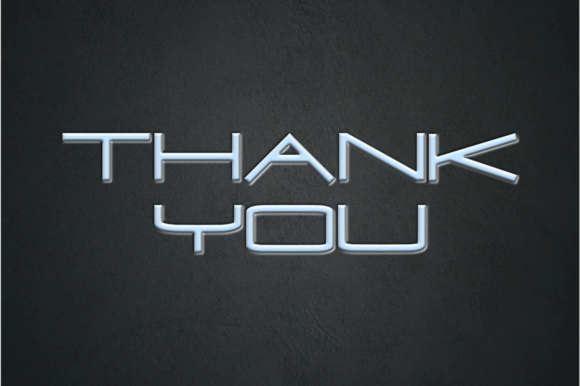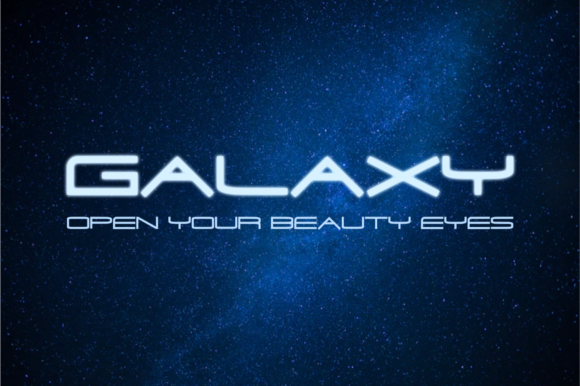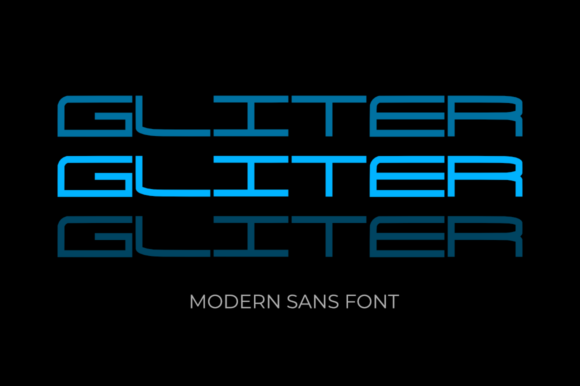
Introducing Gliter Font: Elevate Your Designs with a Modern and Clean Display Font
In the world of design, typography plays a crucial role in conveying messages, expressing creativity, and establishing brand identities. For designers and crafters seeking a font that embodies modernity, minimalism, and a touch of techno style, Gliter Font is an excellent choice. This clean and modern display font is designed to add a smart and cool touch to various design projects, including web designs, logos, and more.
What is Gliter Font?
Gliter Font is a carefully crafted display font that boasts a clean and modern aesthetic. Its minimalist design ensures that it can be used in a wide range of applications, from digital platforms to print materials. The font’s techno style gives it a fresh and cutting-edge look, making it perfect for designers who want to add a contemporary twist to their work.
Key Features of Gliter Font
- Clean and Modern Design: Gliter Font features a clean and modern design that ensures your designs look sleek and sophisticated.
- Minimalist Style: The font’s minimalist style makes it versatile and easy to pair with other fonts, ensuring that your designs remain clutter-free and focused.
- Techno Style: The techno style of Gliter Font gives it a unique edge, making it perfect for designs that require a modern and innovative look.
- High Versatility: Gliter Font can be used in a variety of design projects, including web designs, logos, posters, and more.
Benefits of Using Gliter Font
Using Gliter Font in your design projects comes with several benefits. Firstly, its clean and modern design ensures that your work looks professional and contemporary. The font’s minimalist style ensures that it can be easily paired with other design elements, allowing you to create a cohesive and visually appealing design. Additionally, the techno style of Gliter Font gives your designs a fresh and cutting-edge look, setting them apart from more traditional designs.
How to Use Gliter Font in Your Designs
Incorporating Gliter Font into your designs is straightforward. Here are a few tips to get you started:
- Web Designs: Use Gliter Font as a headline font to add a modern touch to your website’s design. Its clean and minimalist style ensures that it pairs well with a variety of web design elements.
- Logos: Gliter Font is perfect for creating modern and sleek logos. Its techno style gives logos a fresh and innovative look, making them stand out.
- Print Materials: Use Gliter Font in your print materials, such as posters, brochures, and business cards, to add a touch of modernity and sophistication.
Tips for Pairing Gliter Font with Other Fonts
Pairing Gliter Font with other fonts can enhance your designs and create a unique visual hierarchy. Here are a few tips for pairing Gliter Font with other fonts:
- Contrast with Serif Fonts: Pair Gliter Font with serif fonts to create a contrast between modern and traditional design elements.
- Match with Sans-Serif Fonts: Pairing Gliter Font with other sans-serif fonts can create a cohesive and modern look.
- Experiment with Script Fonts: For a more creative look, experiment with pairing Gliter Font with script fonts to add a touch of elegance and sophistication.
Gliter Font is a versatile and modern display font that can elevate your designs with its clean and minimalist aesthetic. Its techno style gives it a unique edge, making it perfect for designers who want to add a contemporary twist to their work. Whether you’re working on web designs, logos, or print materials, Gliter Font is an excellent choice. Experiment with Gliter Font in your next design project and experience the difference it can make.